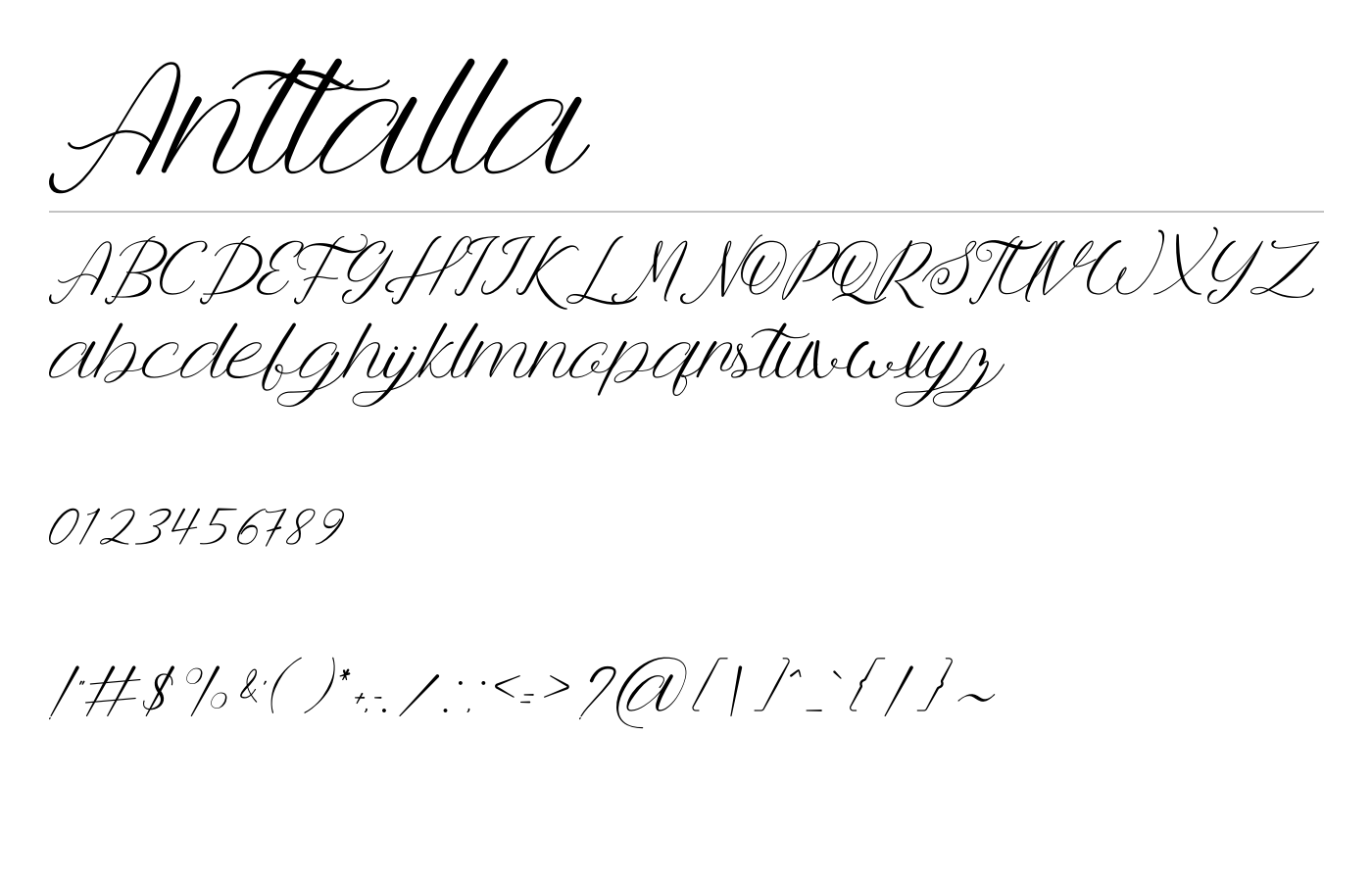
Anttalla is an elegant script font characterized by its delicate, flowing strokes and high contrast between thick and thin lines. Its slender, graceful letterforms and stylish curls give it a refined, handwritten feel, making it ideal for luxury branding, wedding invitations, and sophisticated editorial designs where a touch of elegance and personality is desired. This font works best in large sizes for headlines or logos, adding a sense of artistry and charm to any project.
Anttalla Font
About Anttalla Font
| Designer | Fadli Ramadhan Iskandar |